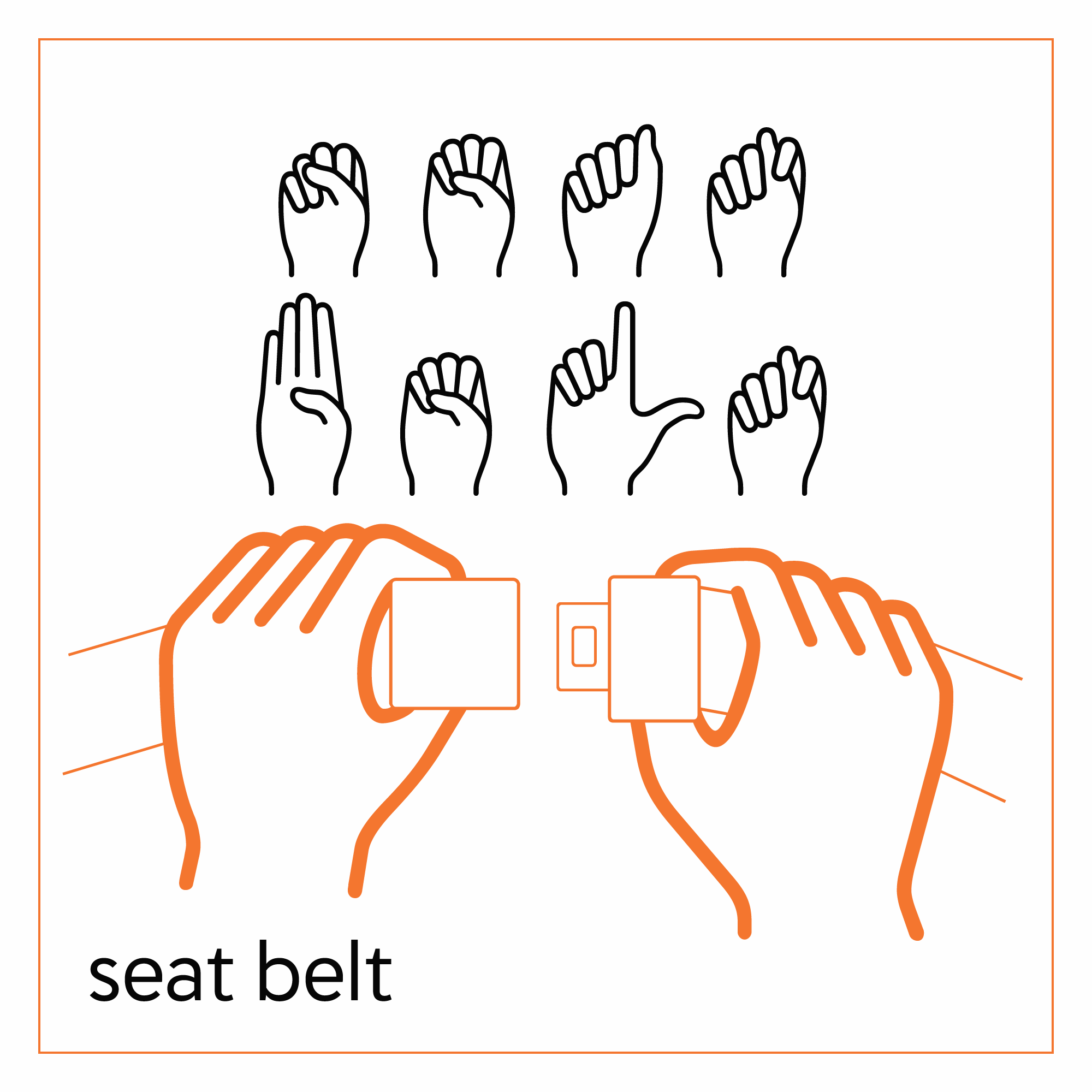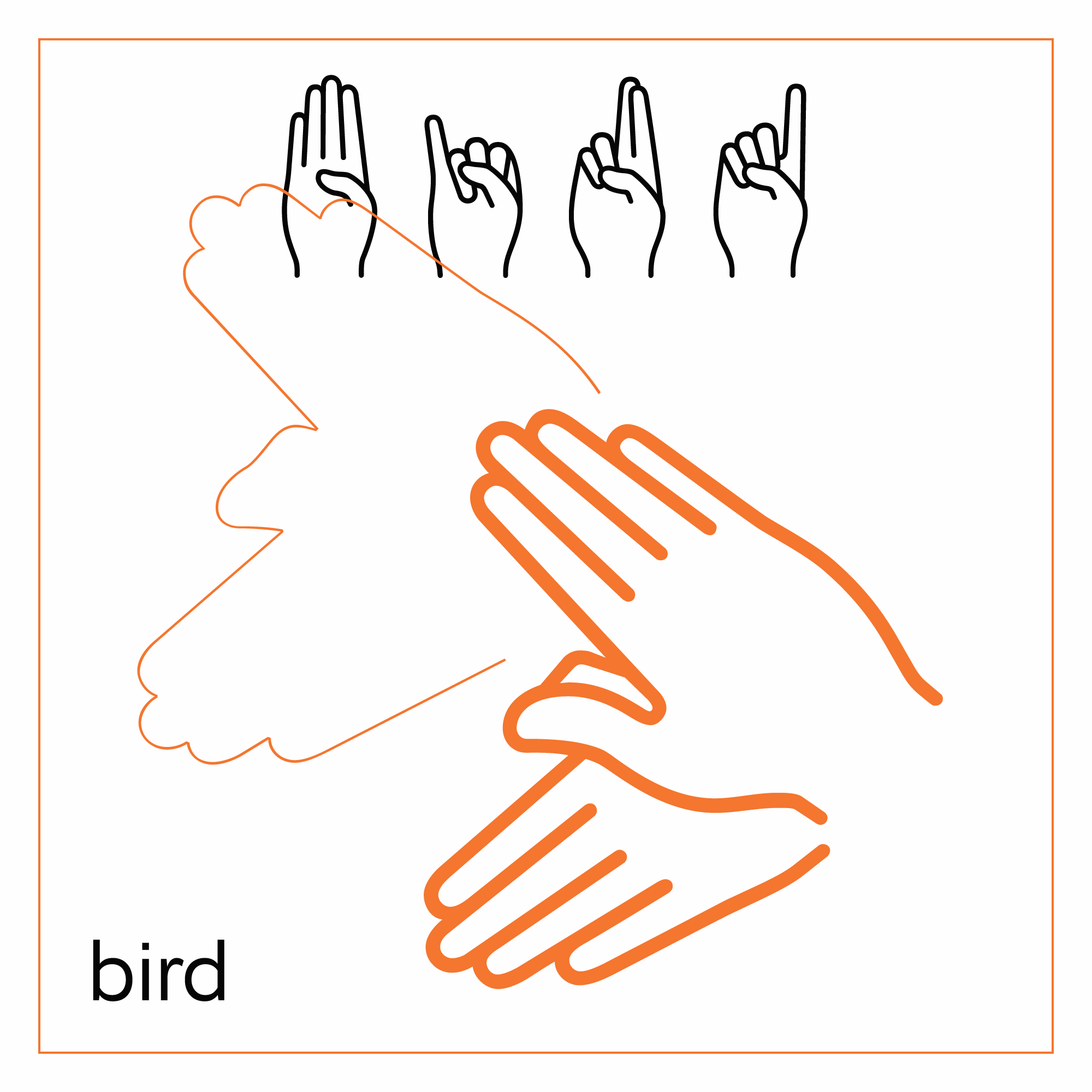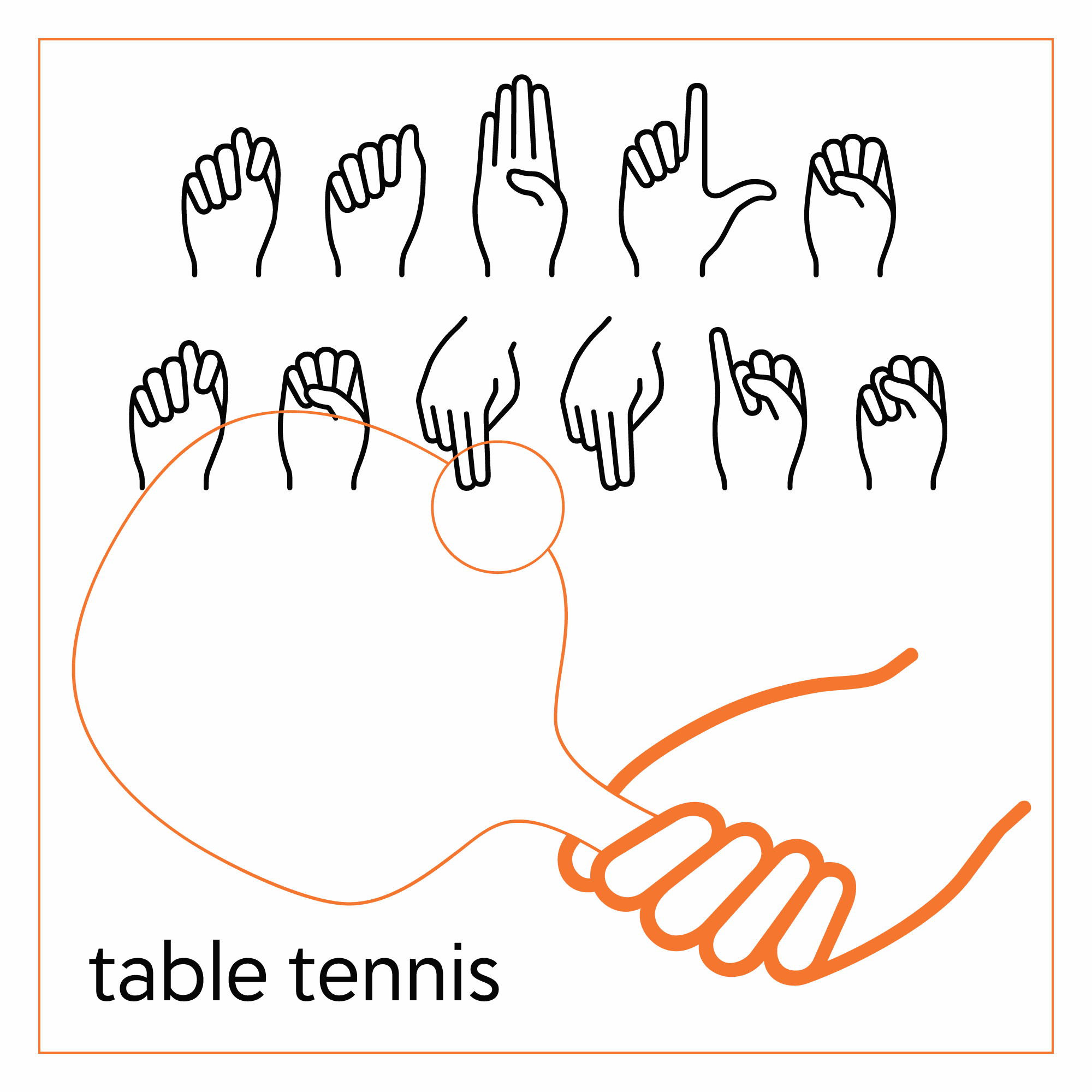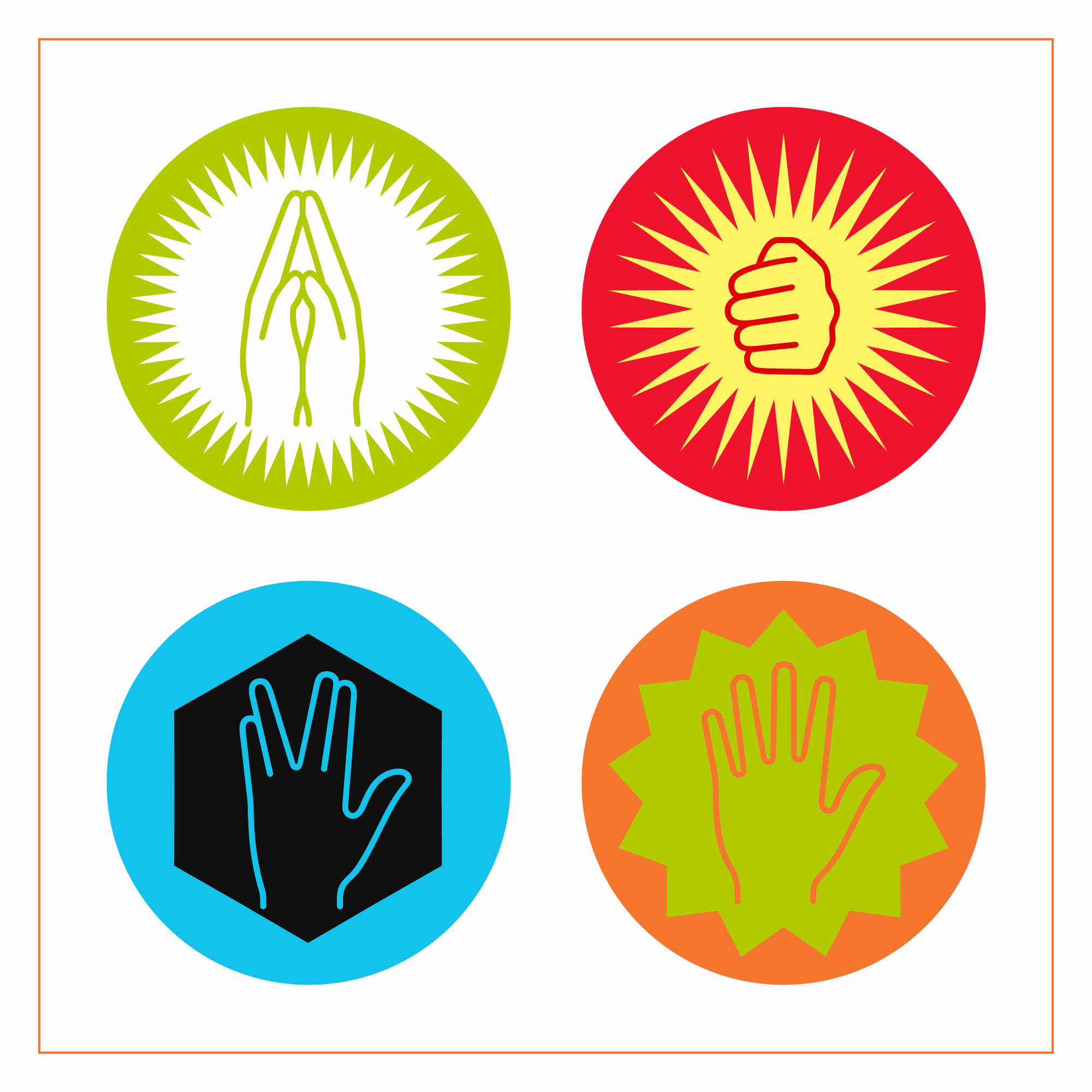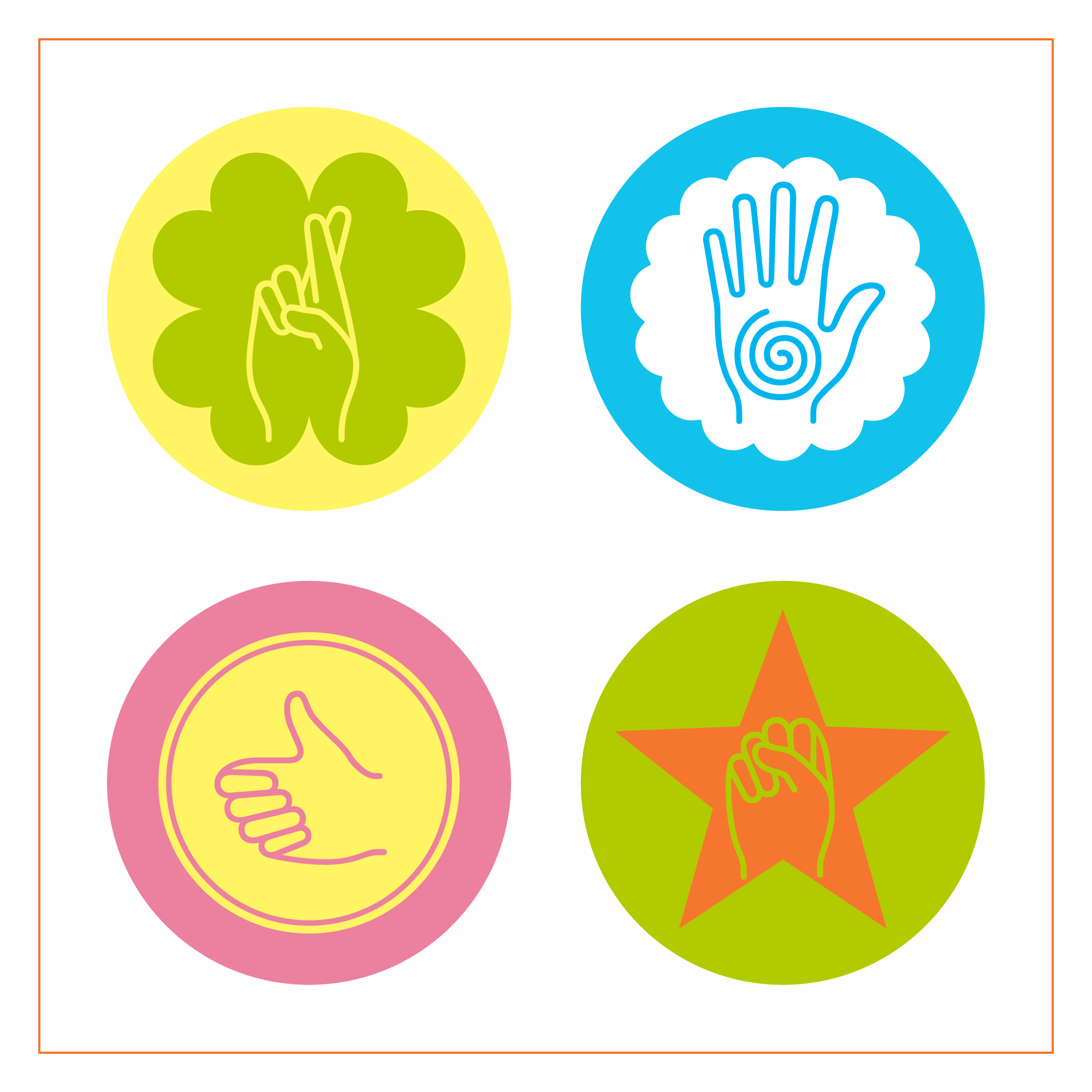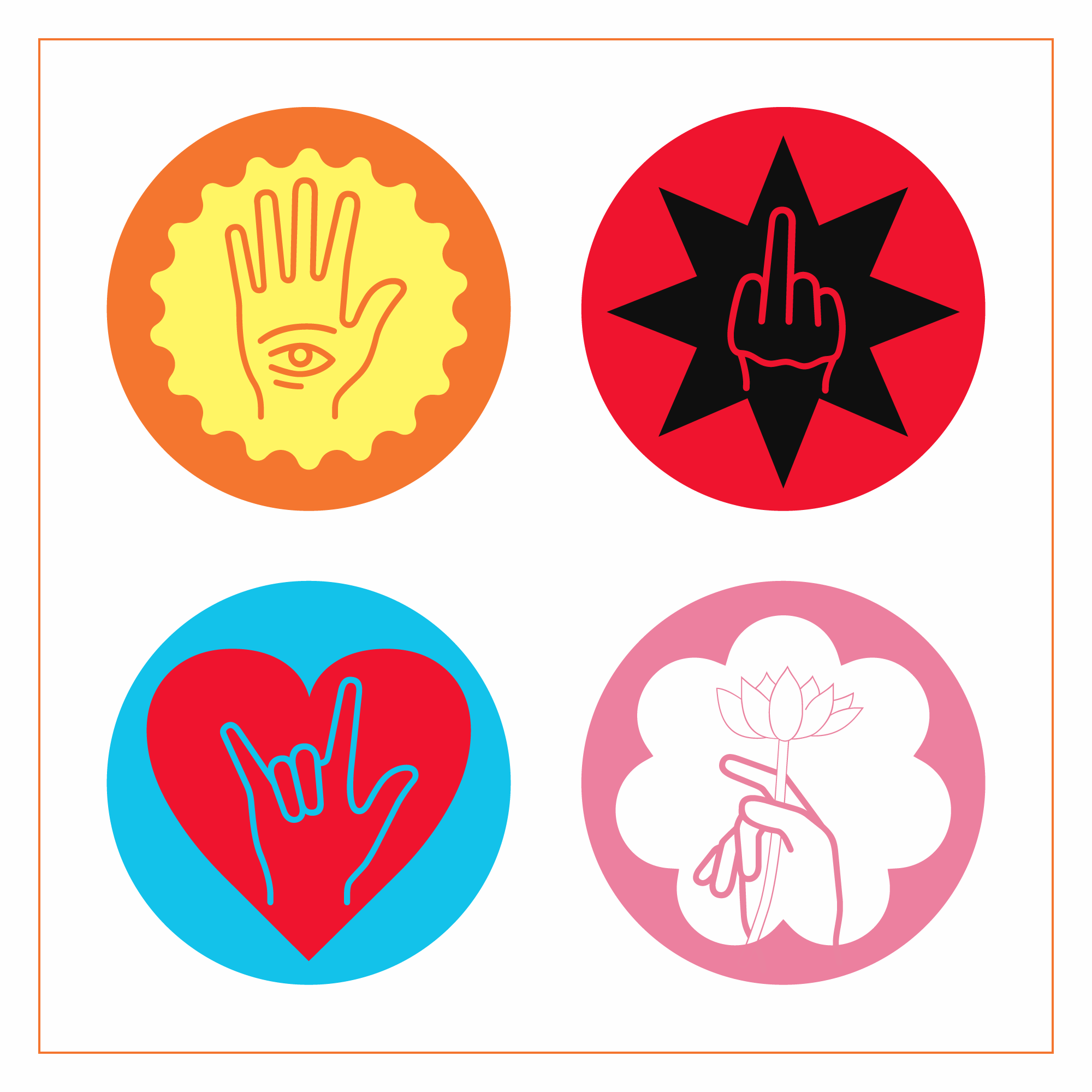
H-AND-S
A unique hand-sign typeface.
In his travels throughout the world, Jean-Benoît Lévy collected specimens of hand-signage that he discovered in various packaging, signage or instruction manuals. More than a decade of research and design on the subject of hand signs resulted in this award-winning* iconographical typeface and the publication: “Handbook: A book of handsigns” The name “H-AND-S” blends the subject with the name of Lévy’s San Francisco based studio, AND, where it was created.
We are all individually different but we have one thing in common: each of us regularly comes in contact with those modern hieroglyphs, which are the little hand sign codes prevalent in our daily lives. Even if particular signs mean something different from one culture to another, there remains a common hand-sign language. All around us these signs are used like a global language because they are meant to be understood by all of us. Each time we use a tool, open a container, or play rock-paper-scissors we are utilizing the language of hand signs. Worldwide, people make these easily understood signs we so often rely on for information, for help, or for directions. We take these signs for granted so are we truly aware of them?
Collecting, redrawing, ordering, unifying. The simple graphical exercise of collecting those signs became step-by-step, a complex signage program. The choice of those signs is based on daily movements and on universal hand codes. Logically, this typeface starts with the “Manual Alphabet for the Deaf” and is mapped to the upper and lowercase keys of the QWERTY keyboard. H-AND-S is the first time so many hand signs were assembled and redrawn in one consistent style. The language of hand signs is universal. It belongs to no one in particular and to all of us in general.